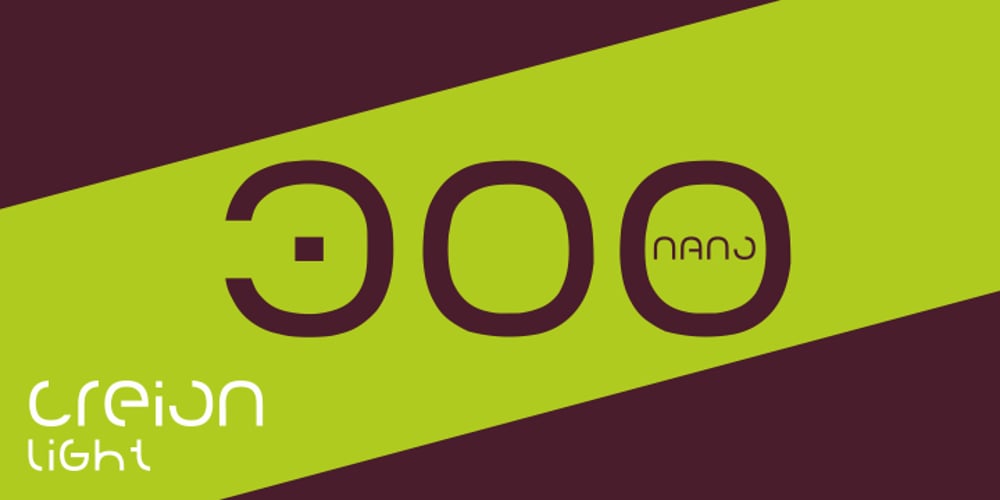
Creion Font Family was designed by Horea Grindean and published by Horea Grindean. Creion contains 3 styles and family package options. Creion is a minimal round font, perfect for 2.0 logos and contemporary headlines. Creion fonts is an exclusive type fonts inspired by design elements. It includes a light version, a regular version and a bold version for strong type.